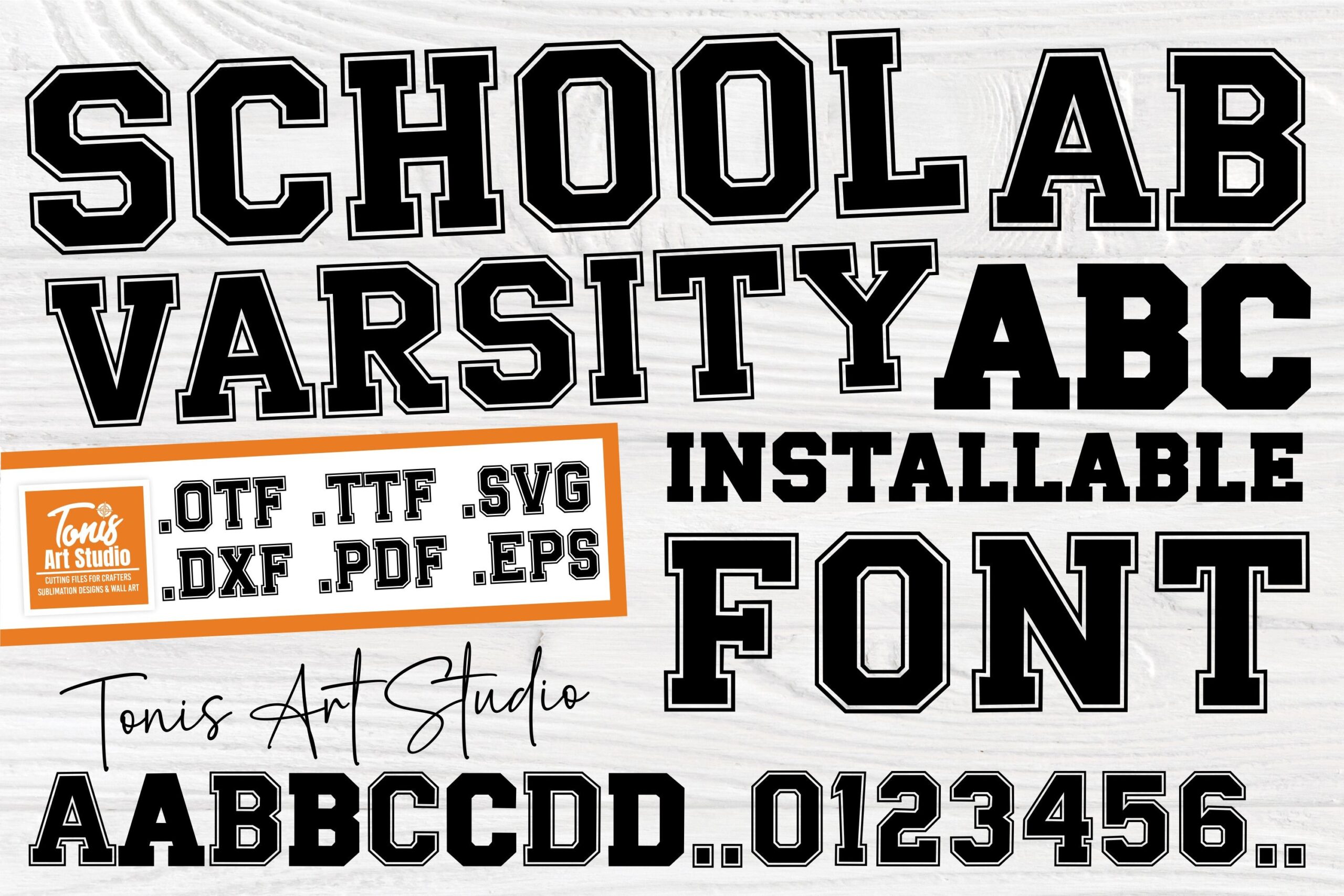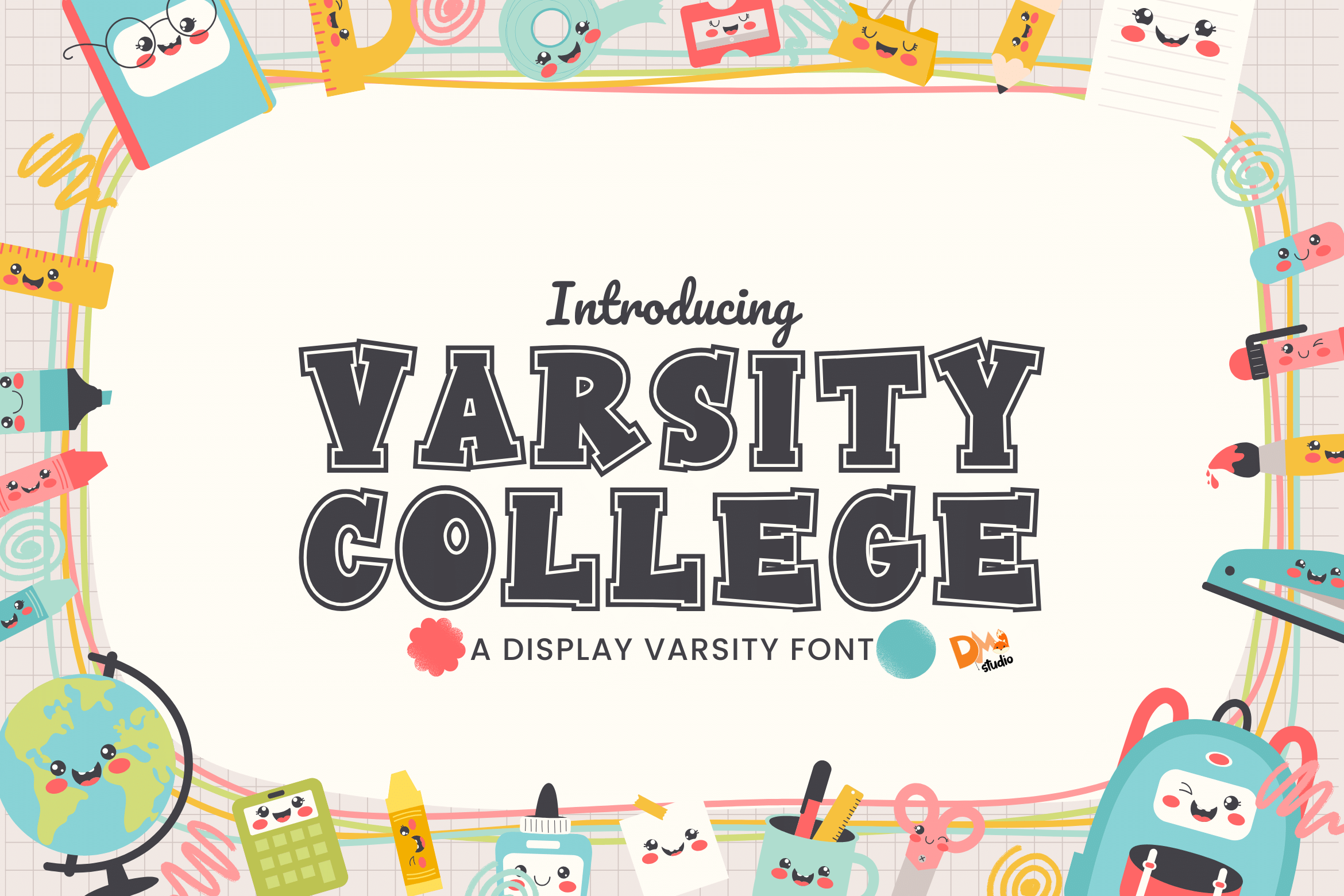
Varsity Fonts for Jackets, Hoodies and Team Merch: 22 Block, Slab and Collegiate Styles
Varsity lettering is the block and slab alphabet you know from school jackets, pennants and team hoodies, and a good varsity font gives you that look without any stitching or chenille. This list sorts twenty-two of them by how they are built: classic slab and block capitals, arched and stacked layouts with outlines, worn retro faces, and modern sets with scripts or extra styles.
People search for the same thing under several names: varsity letters, collegiate fonts, or a varsity font alphabet to type their own initials and team names. Here they all mean bold capitals made for school and team names, and each group below says what its fonts do best. Jersey numbers live in the Jersey Fonts collection linked below and football-themed faces are in Football Fonts, so those lists are not repeated here.
Classic Slab & Block Varsity Fonts
Classic varsity lettering is heavy slab or block capitals with very little decoration, the kind that sits on a sweatshirt chest or a school banner and reads from across a gym. These seven keep the shapes solid and the corners square, from an outlined school face to an expanded block with cut corners. They are the safest starting point when you need a varsity font that simply looks like a school.
1. Varsity College Font
Best For: school spirit posters, academic pennants, team shirts, retro logos
The preview sets VARSITY COLLEGE in dark grey, squared-off capitals with sturdy slab feet, framed by a pastel backdrop of school supplies. The listing calls the characters sturdy and square-like, and that is the right way to read them: even, upright and easy to recognise as school lettering.
It is a good default for a pennant, a homecoming poster or a team shirt where the name needs to look official rather than fancy. The listing mentions athletic branding, academia-inspired apparel and victory posters, and it shows compatibility with Cricut and Silhouette.
Varsity College Font by Sharon (DmStudio), dark grey square varsity capitals on a pastel school-supplies frame
2. School Varsity Font
Best For: t-shirts, school merchandise, posters, DIY craft projects
School Varsity mixes two treatments: the listing describes uppercase letters with a striking outline and solid, clean lowercase. The preview shows black slab capitals on a white wood texture with a row of numerals underneath and a strip of file formats: OTF, TTF, SVG, DXF, PDF and EPS.
The outlined capitals carry a headline and the solid lowercase gives you a quieter setting for smaller words, so one font can handle both a name and a line under it. Cut files are included for Cricut and Silhouette according to the listing, which makes it an easy pick for vinyl shirts and school merch.
School Varsity Font by TonisArtStudio, black varsity slab capitals with outlines on a white wood texture with a number row
3. Heavyweight Font
Best For: wrestling graphics, team apparel, gym branding, bold posters
Heavyweight is the plainest face in this group on purpose. The listing describes tall, heavy block letters with clean edges and no outlines, with every letter and number built to look solid.
Because nothing is stacked, outlined or textured, it holds up at small sizes and on cut vinyl, and it pairs easily with any script you like. Use it for a gym shirt, a wrestling graphic or a poster headline where you want weight and nothing else.
Heavyweight Font by Marty Letter Studio, tall heavy block letters with clean edges and no outlines
4. Blocksmith Varsity Font
by Sharon (DmStudio)
Best For: team jerseys, college banners, stadium signage, campus events
Blocksmith Varsity is an all-caps display face with strong block shapes and sharp serifs. The listing ties it to the look of team jerseys, college banners and retro athletic graphics.
The sharp serifs give it a little more bite than a plain block, so it works when you want tradition with an edge on a banner or a campus event sign. The listing also points to logos, merchandise and school apparel.
Start With the Garment
Choose the font that matches the thing you are making, then test it with your real words. Print a sample at actual size, pin it up and step back a few meters. If the name still reads from there, the font will hold up on the jacket, the banner or the sign.